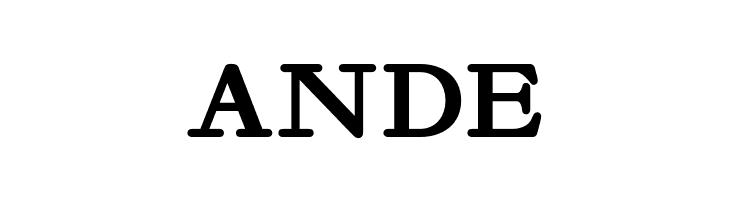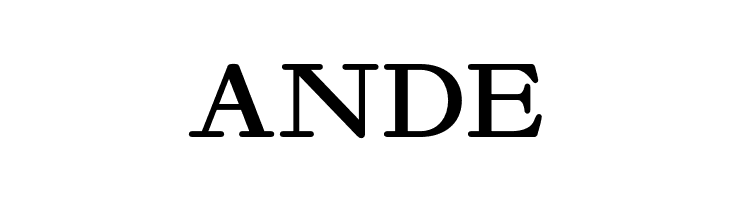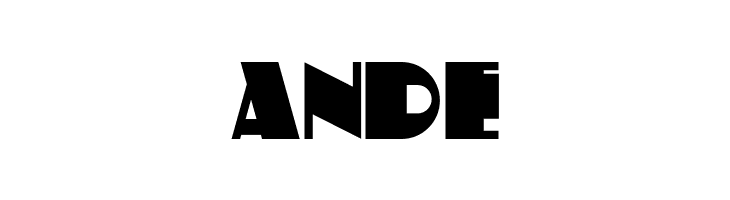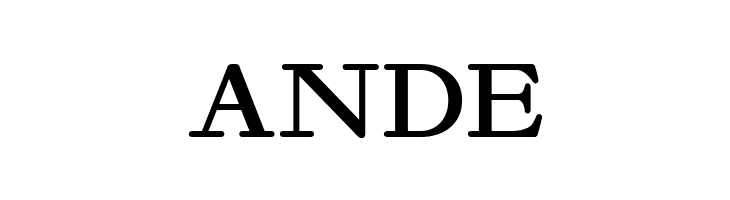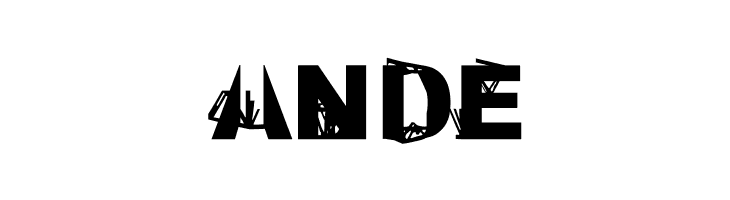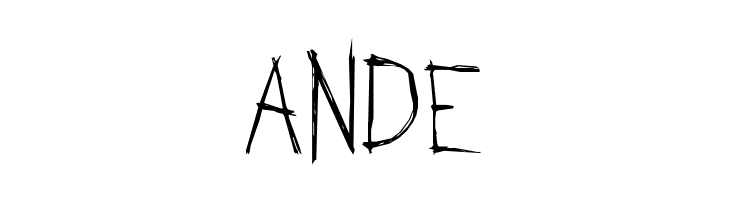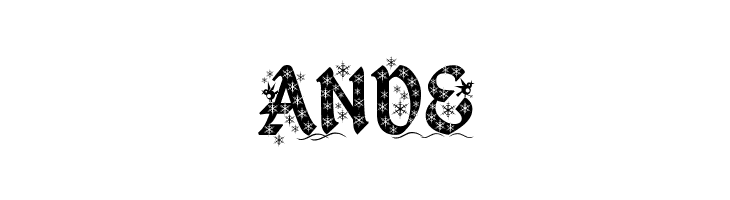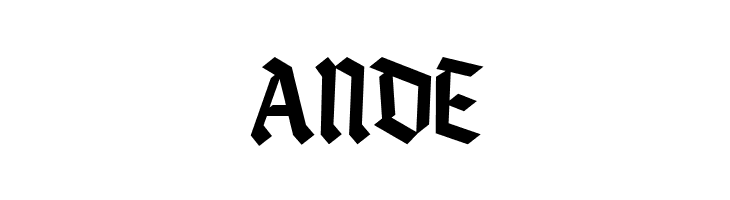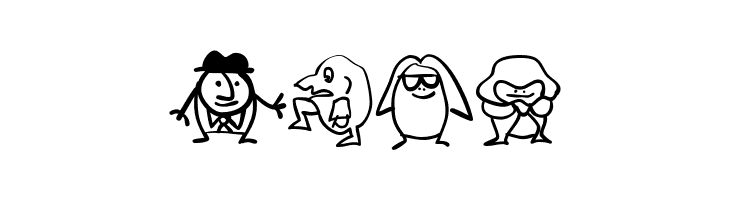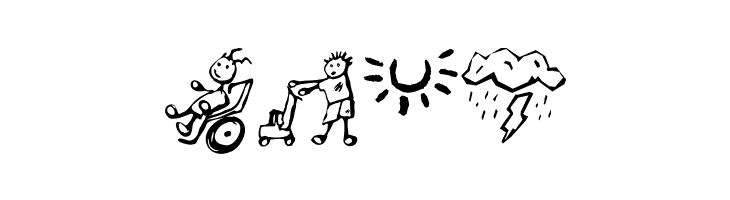
A bold, decorative font with a three-dimensional outline effect and geometric shapes.
A hand-drawn, artistic font with irregular strokes and a unique, expressive style.
A vintage serif font with bold, sharp serifs and elegant curves.
A bold, classic serif font with strong strokes and elegant serifs.
A classic serif font with elegant, well-defined characters and moderate contrast.
A bold, classic serif font with strong, authoritative characters.
A playful, hand-drawn font with bold, irregular strokes and a casual feel.
A bold, geometric font with sharp angles and a modern aesthetic.
A bold, geometric font with sharp angles and a striking appearance.
A bold, geometric font with a futuristic and digital aesthetic.
A playful, handwritten font with uneven strokes and a casual, friendly style.
A playful, handwritten font with dynamic and irregular strokes.
A dingbat font of hand-drawn children's drawings and playful scenes.
A playful, hand-drawn font featuring whimsical stick figures and doodles.
A whimsical, cartoon-like font with playful, exaggerated characters.
A bold, medieval-style font with sharp, angular edges and decorative details.
A decorative font with medieval influences and angular serifs.
A bold, Art Deco-inspired font with high contrast and elegant, narrow forms.
A bold, Art Deco-inspired font with high contrast and elegant, elongated forms.
An ornamental display font with each character depicted as a unique labyrinth or maze.
A geometric and abstract decorative font with high contrast and dynamic style.
A bold, oblique font with a modern and dynamic style.
A bold, angular Blackletter font with historical elegance.
A bold and expressive script font with fluid, connected strokes.
A bold, shadowed font with a three-dimensional, decorative style.
A bold, brush-style font with dynamic, handcrafted strokes.